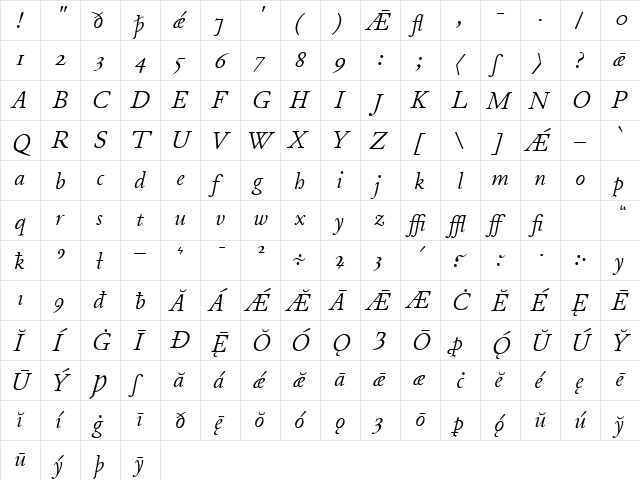
JuniusModern Italic
Design Context for JuniusModern Typeface
JuniusModern takes a measured approach to typography — its balanced proportions and neutral character make it a reliable workhorse for both digital and print work. The slanted form adds forward momentum and visual energy.
Pro Tip: Try JuniusModern for annotation and caption copy alongside an upright companion — the contrast in angle creates a dynamic but ordered typographic system.